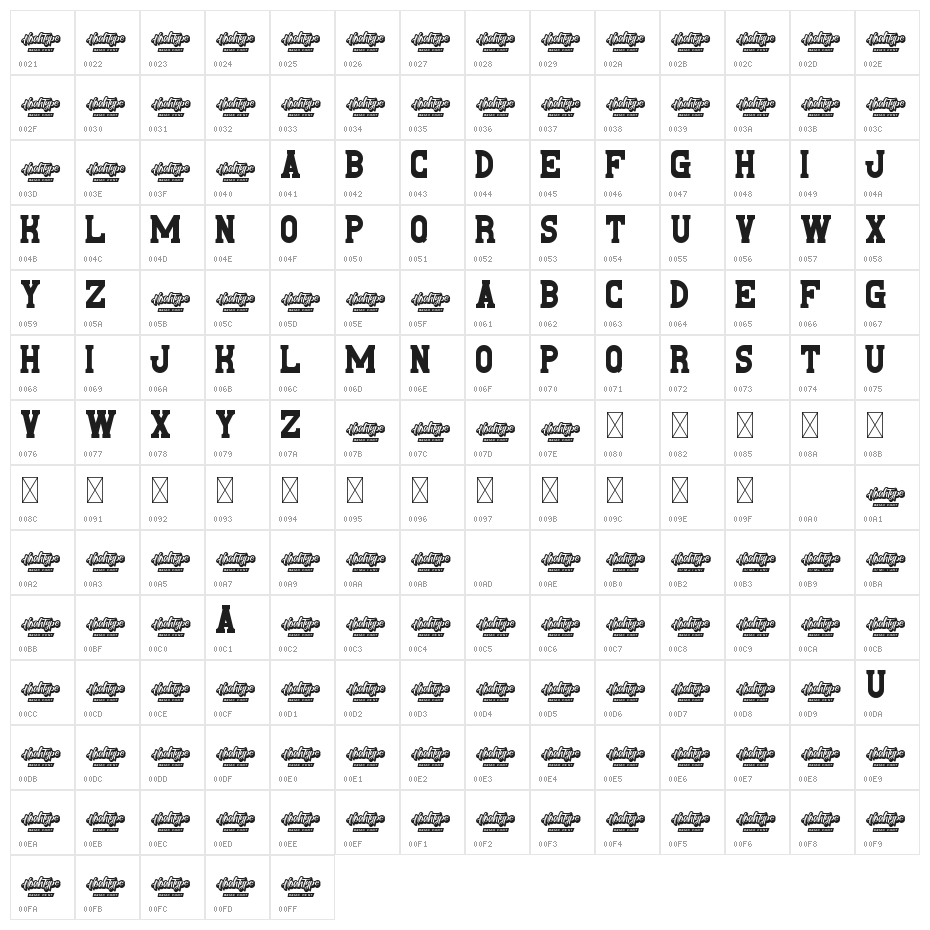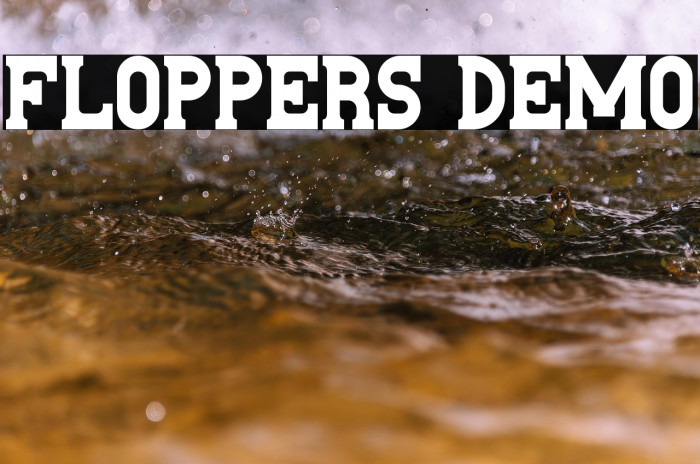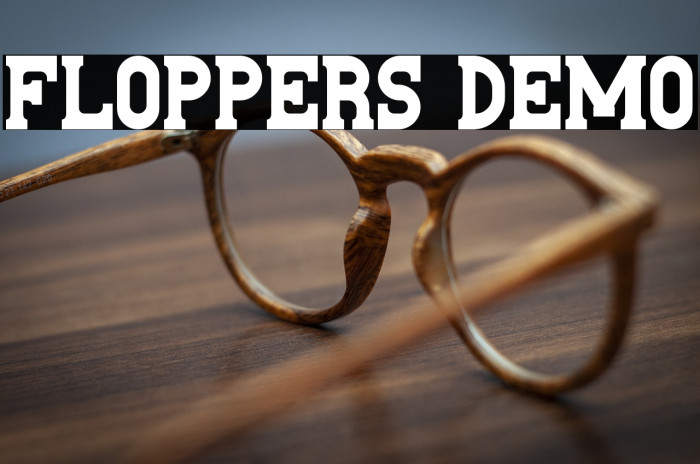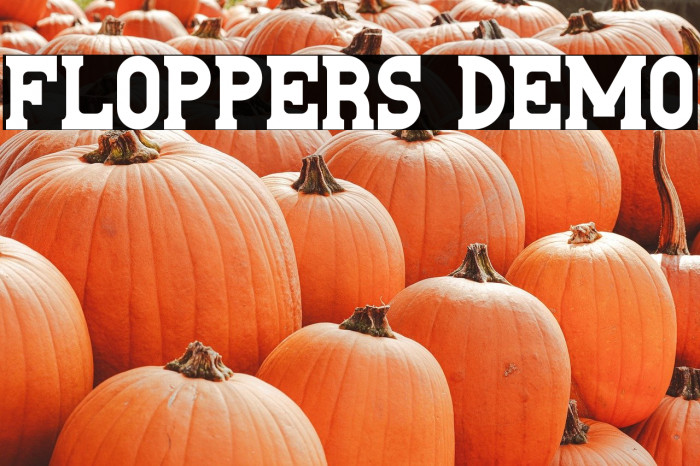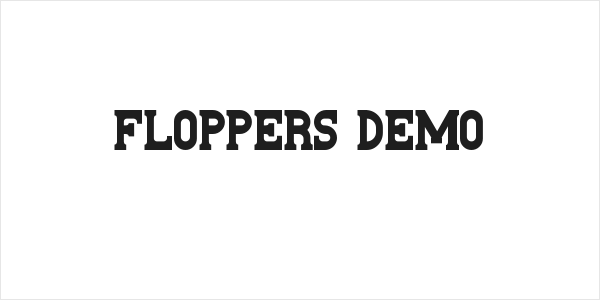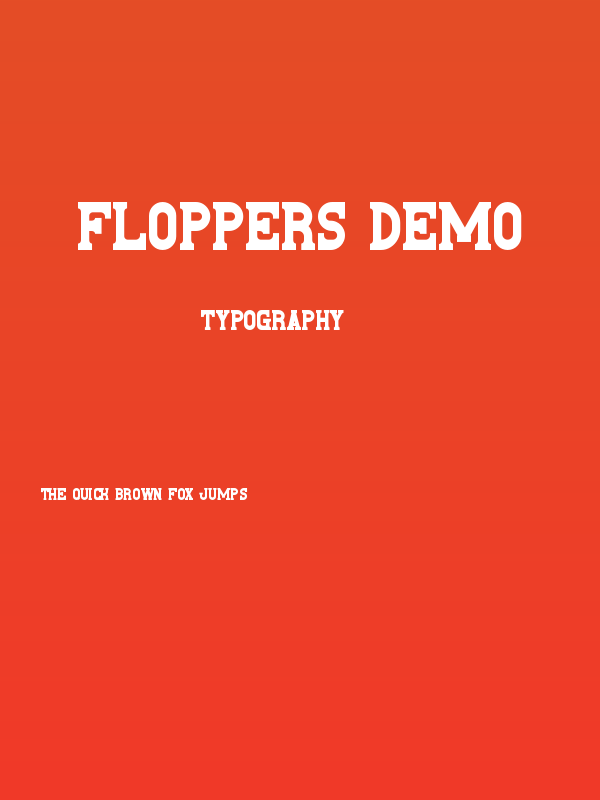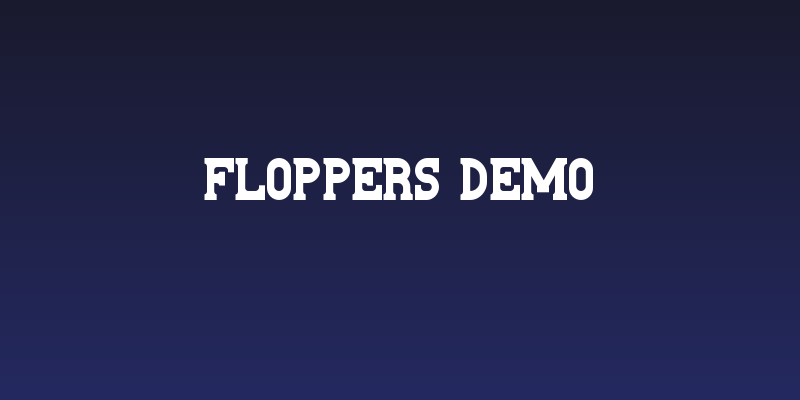
Floppers Demo Font
Floppers Demo Description
This font features bold, blocky characters with a strong presence, making it ideal for impactful designs. The letters are uniformly thick, with a slight vintage flair reminiscent of old-school signage or sports jerseys. The uppercase letters are particularly striking, with a consistent height and width that ensures readability. The font's design is clean yet robust, with minimal decorative elements, focusing on clarity and strength. The overall style is both classic and modern, suitable for a variety of applications where a bold statement is needed.
| Proposed Projects | This font is perfect for sports team logos, vintage posters, bold headlines, and branding projects that require a strong, memorable typeface. |